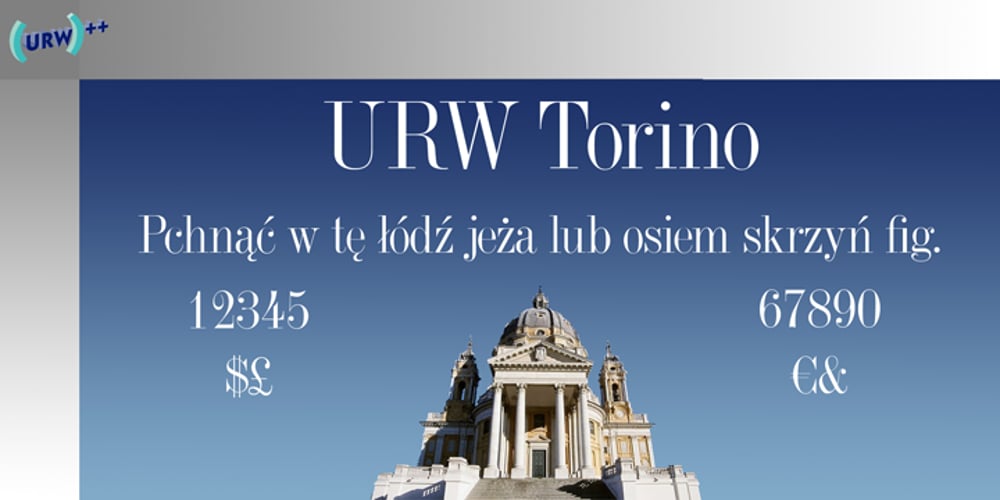
Torino Font Family was designed by Edward Benguiat and published by URW Type Foundry. Torino contains 1 styles and family package options. The Torino font family was designed by Alessandro Butti in 1908 for the Nebiolo foundry in Turin. Torino is a narrow face in the Bold weight; the condensed weight is so narrow that it should be used in over 14pt.